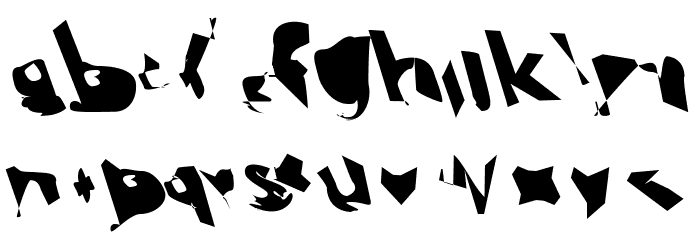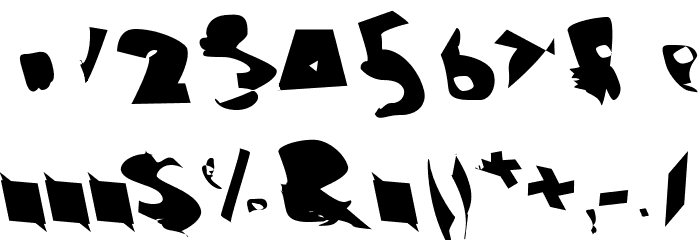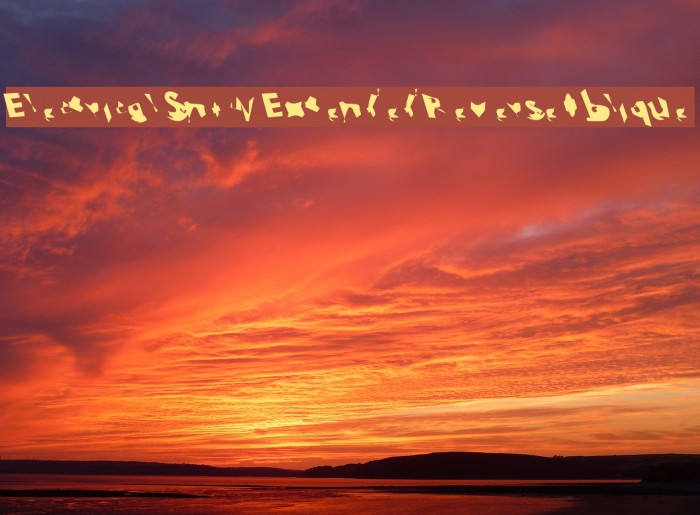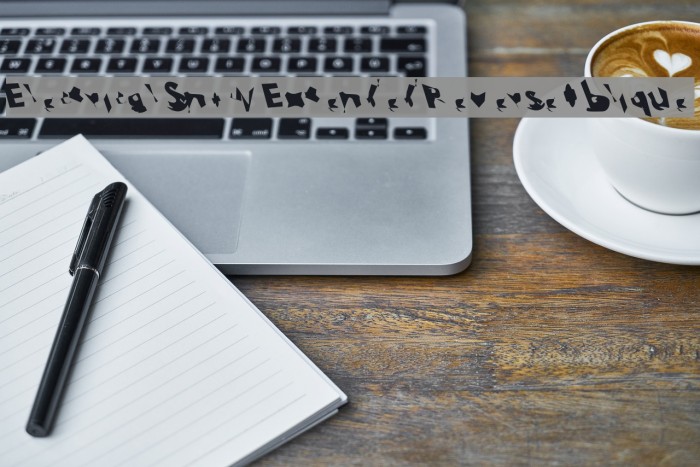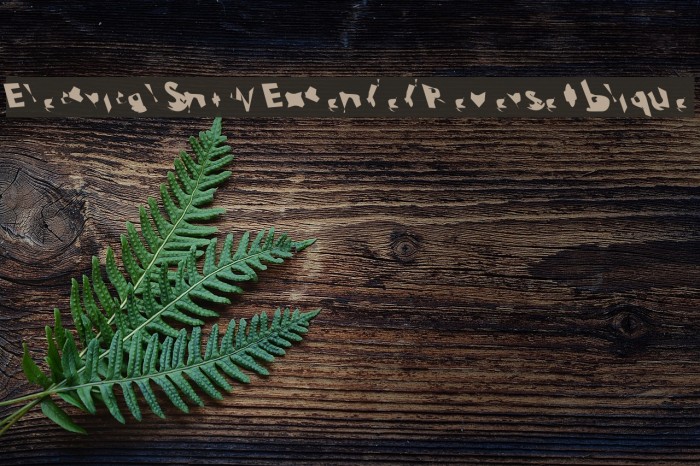
Electrical Snow Extended ReverseOblique Font
This font features a highly stylized and fragmented design, with each character appearing as if it has been shattered or distorted. The bold, angular shapes create a sense of movement and energy, making it visually striking and unique. The uppercase and lowercase letters, as well as numbers and special characters, all share this dynamic, broken appearance. The irregularity in the design adds a chaotic yet artistic flair, suitable for projects that require a bold statement or an edgy aesthetic.
A bold, fragmented font with a dynamic and chaotic design.
- Proposed Projects: Ideal for album covers, poster designs, video game graphics, and any project requiring a bold, edgy aesthetic.
- Width: Expanded
- Overall Style: Modern, Edgy